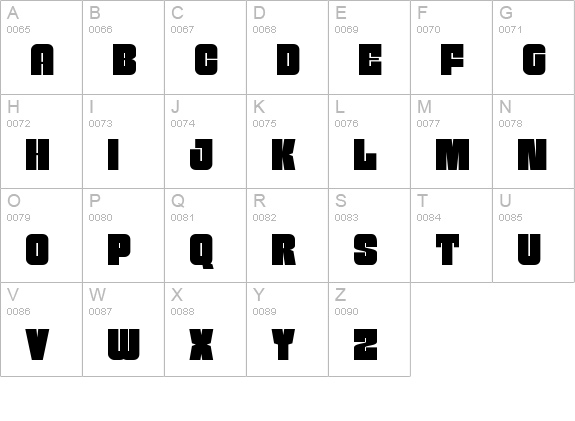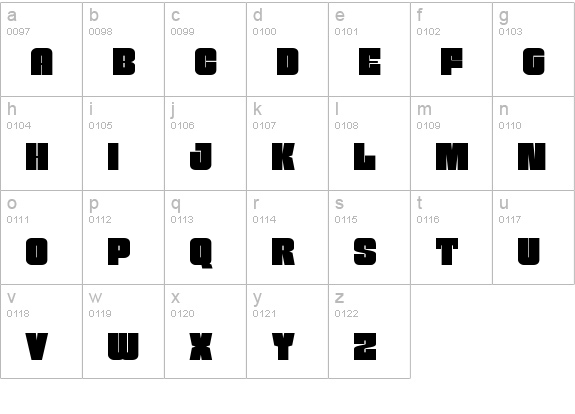
Funk Machine Font Details
Funk Machine is a donationware font in the General > Bold category, designed by Iconian. It has been downloaded 272 times and is available for Windows, Mac and Linux.
Introducing Funk Machine, a bold and groovy display font that exudes retro charm and funky vibes. This font is perfect for adding a playful and energetic touch to your designs, whether it's for posters, album covers, or social media graphics.
Embodying the spirit of the 1970s disco era, Funk Machine features exaggerated curves, sharp angles, and a unique retro aesthetic that is sure to make your text stand out. Its thick, chunky letterforms give off a sense of fun and excitement, making it ideal for projects that need a touch of personality.